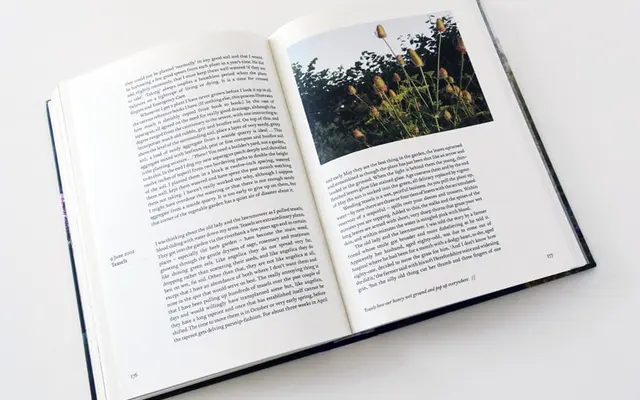
Foundry Wilson
The Foundry Types · Freda Sack
A careful revival of Alexander Wilson's 1760 Scottish types, drawn for book work with small capitals, ligatures and old-style figures included.
Based on types cast by Alexander Wilson of Glasgow in 1760, this revival redraws the original roman and italic faithfully before extending the family with a Medium and Bold. Wilson's types were known for their even colour and vigorous fit at smaller sizes, qualities that carry through here and make the face well-suited to long-form book typography. The character set adds small capitals, ligatures, old-style figures and a set of printer's flowers drawn from the same historical source.
A revival of Alexander Wilson's 1760 types, placing it firmly in the transitional period between old-style and modern serifs; the foundry explicitly describes it as a transitional serif design with incised letterform characteristics of its era.